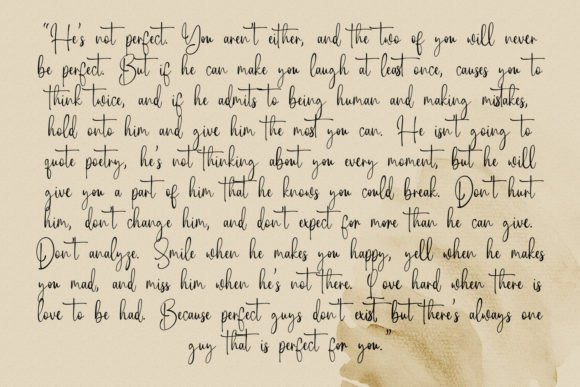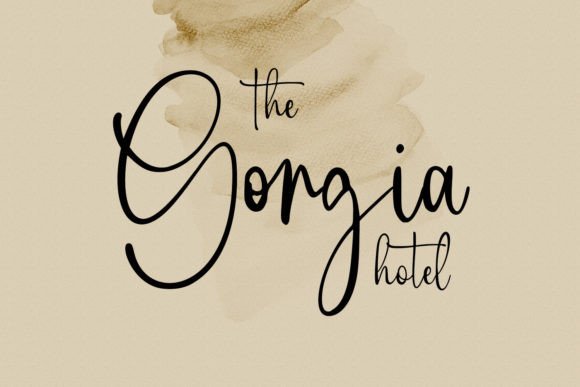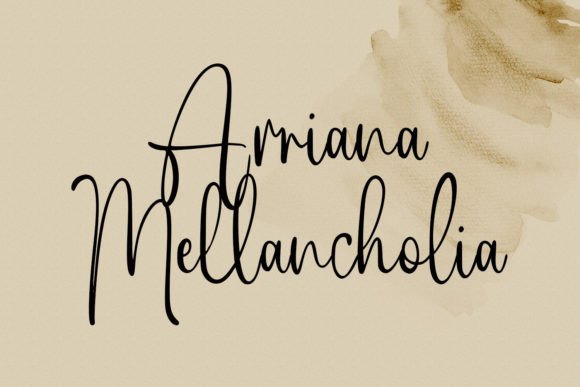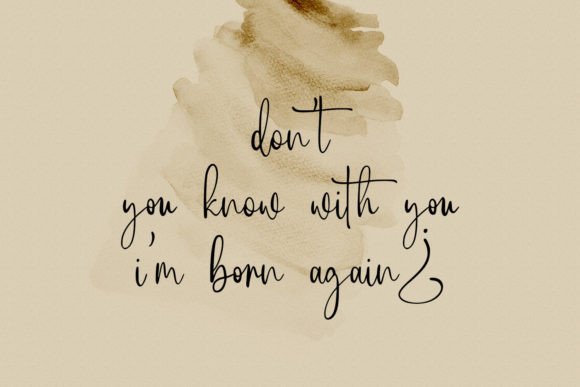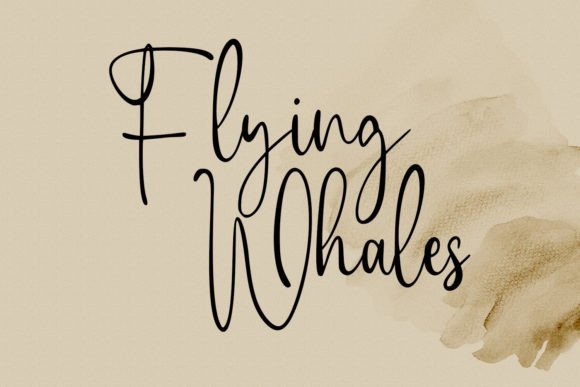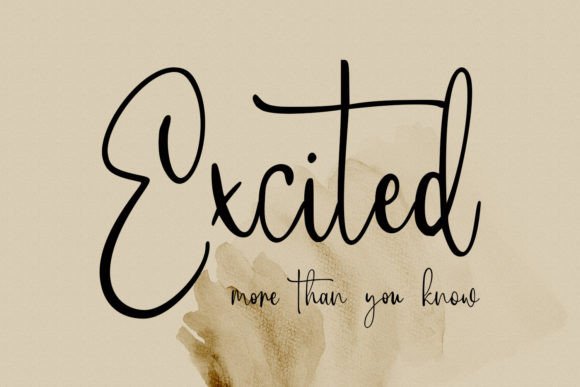
The Berthillas Font: A Dazzling Script to Elevate Your Designs
I’ll never forget the time I was working on a project for a client who wanted a elegant, high-end look. I had spent hours browsing through font libraries, but nothing seemed quite right. That was until I stumbled upon Berthillas, a dazzling script font that exceeded my expectations. In this article, I’ll share my experience with Berthillas, its features, and how to make the most of this beautiful font.
An Honest Review of Berthillas
Berthillas is a neatly crafted and highly detailed script font that has become a valuable asset to my font library. Here’s what I love about it:
- ✨ Elegant and sophisticated design, perfect for high-end projects
- 🌈 Versatile and adaptable to various design styles and themes
- 💻 Works well with both digital and print media
While Berthillas is an excellent font, it’s not without its quirks. Here are a few things to keep in mind:
- 🤔 Some letters may require manual kerning for optimal spacing
- ⚠️ May not be suitable for very large or very small font sizes
The Story Behind Berthillas
Berthillas was designed by a talented typographer who drew inspiration from classic script fonts. The font’s creator wanted to craft a font that was both elegant and highly legible, making it suitable for a wide range of design applications. While the exact story behind Berthillas may be unknown, its beauty and versatility have made it a popular choice among designers.
| What type of projects is Berthillas best suited for? | Berthillas is a versatile font that can be used for a wide range of projects, including high-end branding, editorial design, and digital media. |
| Is Berthillas suitable for body text? | While Berthillas is highly legible, it’s best used as a display font or for short blocks of text. For longer body text, a serif font may be more suitable. |